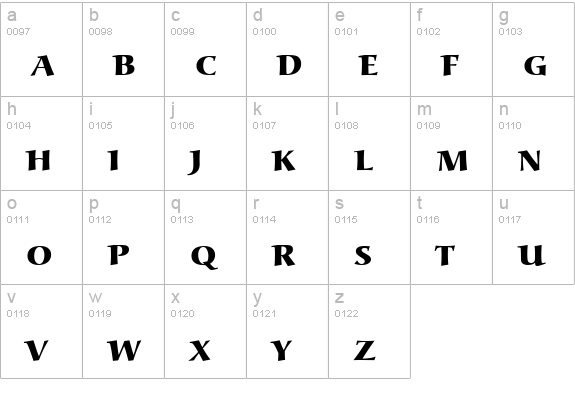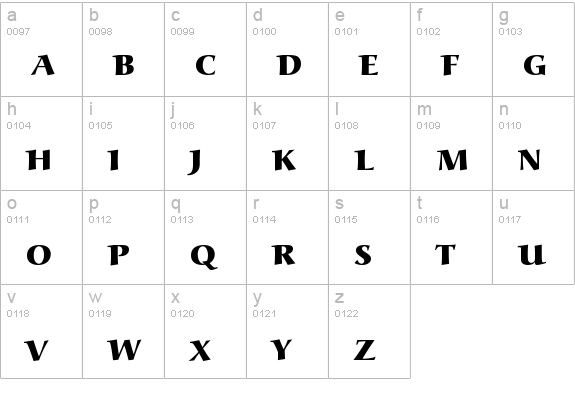
URWAlcuinSCTExtBol Font Details
URWAlcuinSCTExtBol font is a bold and impactful typeface that exudes elegance and sophistication. Its clean lines and distinct letterforms make it perfect for a wide range of design projects, from print materials to digital applications. This font features a generous x-height and well-balanced proportions, ensuring excellent legibility in both small and large sizes. The bold weight adds a touch of strength and authority to any text it is applied to, making it ideal for headings, titles, and logos. One of the most appealing aspects of URWAlcuinSCTExtBol font is that it is available for free download at FontsMarket.com. This means that designers, creatives, and enthusiasts alike can easily access this remarkable font without any hassle or cost. The freedom to use this font in personal or commercial projects adds incredible value to its already impressive design qualities. URWAlcuinSCTExtBol font is designed with meticulous attention to detail, ensuring smooth curves and impeccable spacing. Its versatility allows it to be used in a variety of design contexts, from elegant invitations to modern websites. This font will undoubtedly elevate the visual appeal of any project it is used in. Whether you are a professional designer or just starting your creative journey, URWAlcuinSCTExtBol font is a valuable addition to your font collection. Its bold and refined aesthetic, combined with its availability for free download at FontsMarket.com, makes it a must-have for anyone looking to enhance their designs with a touch of sophistication and elegance.